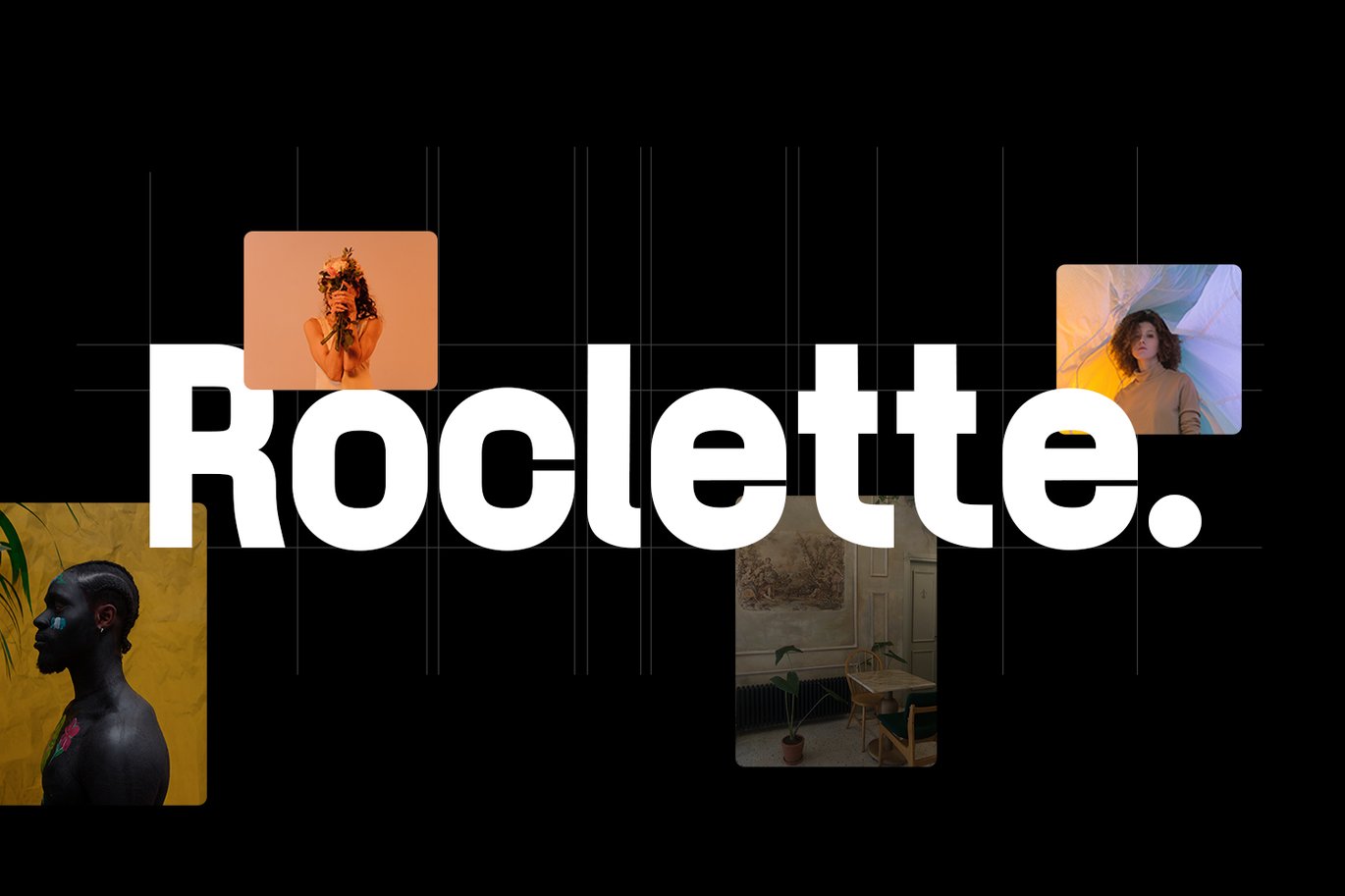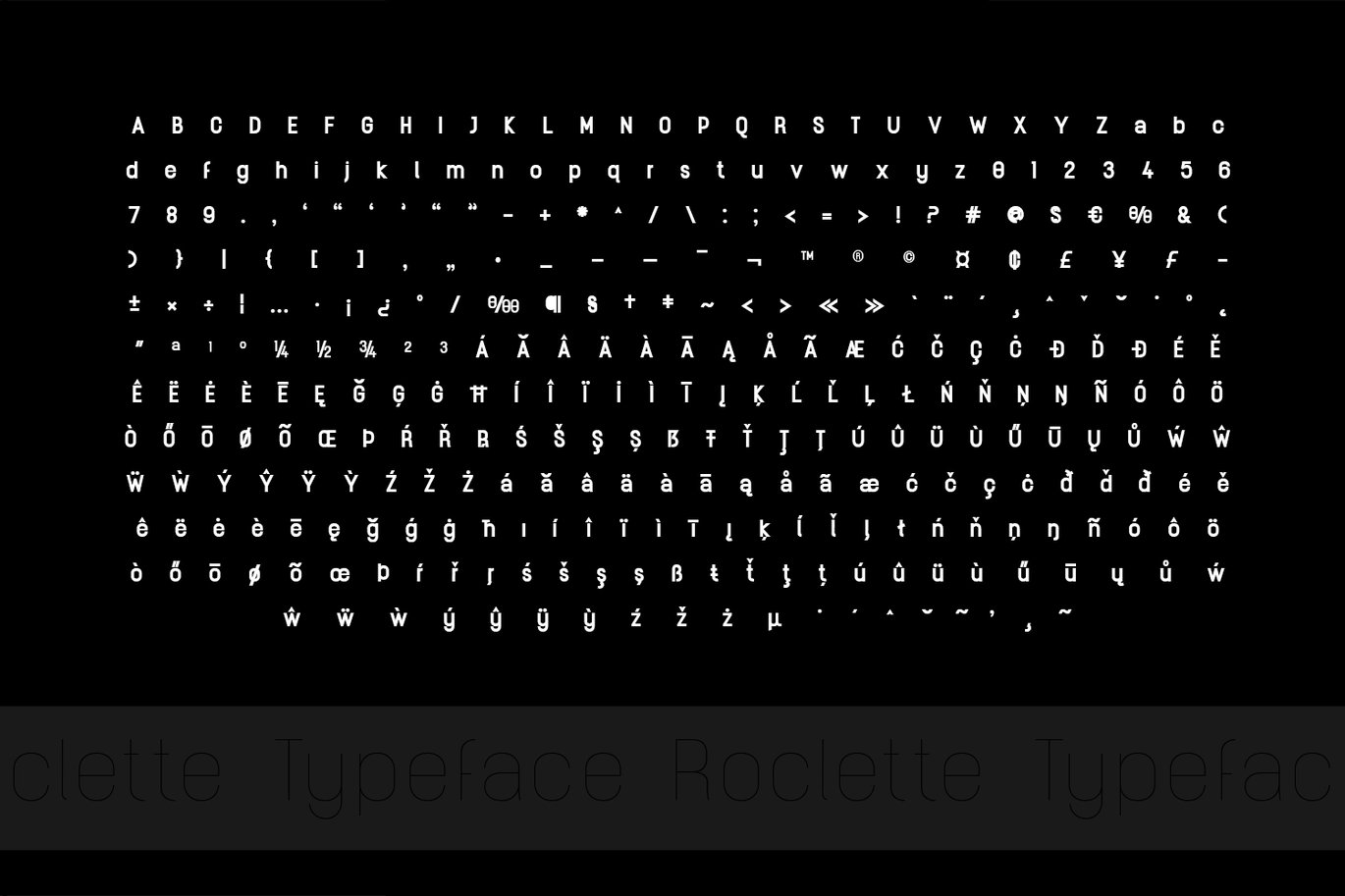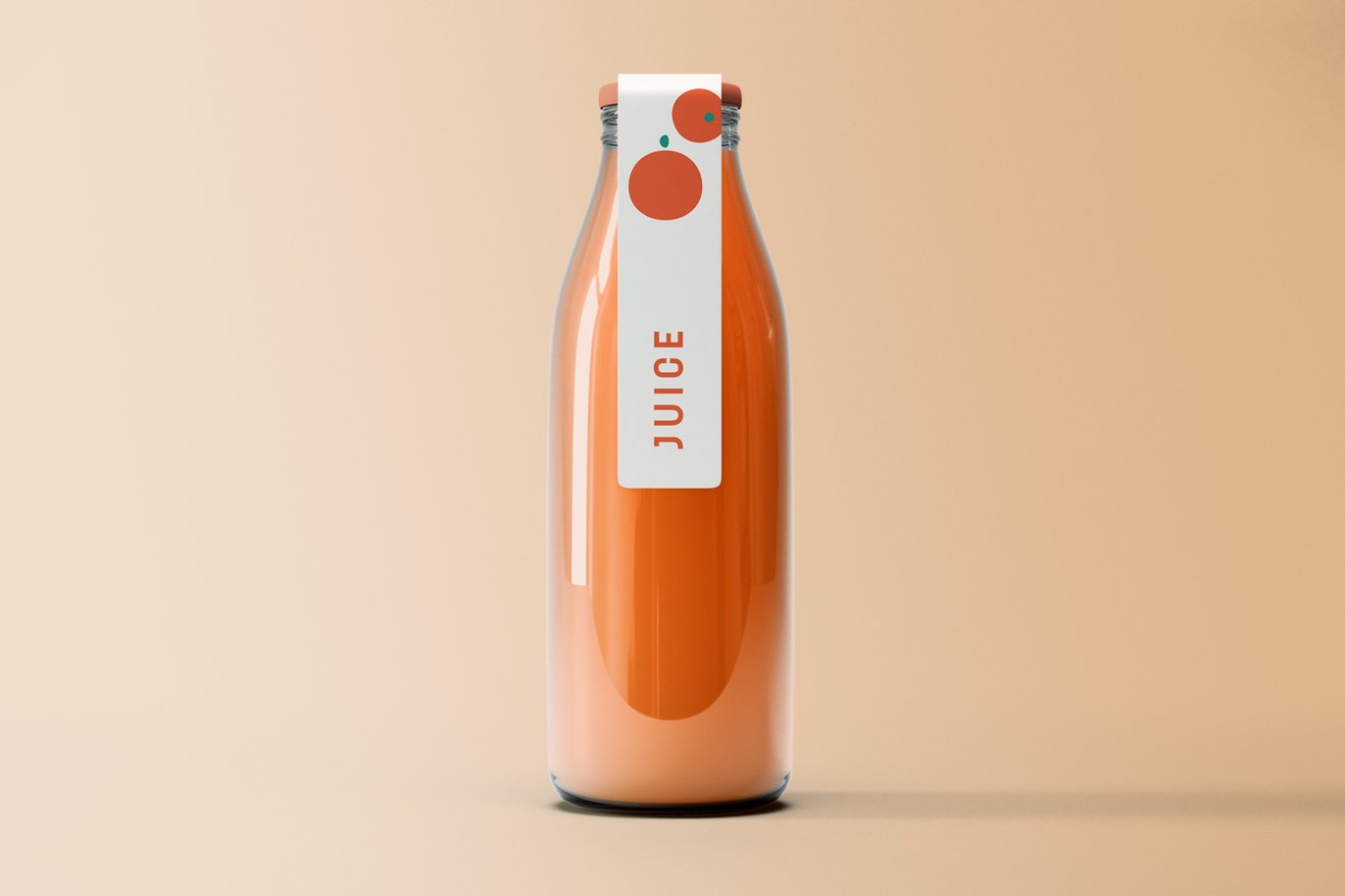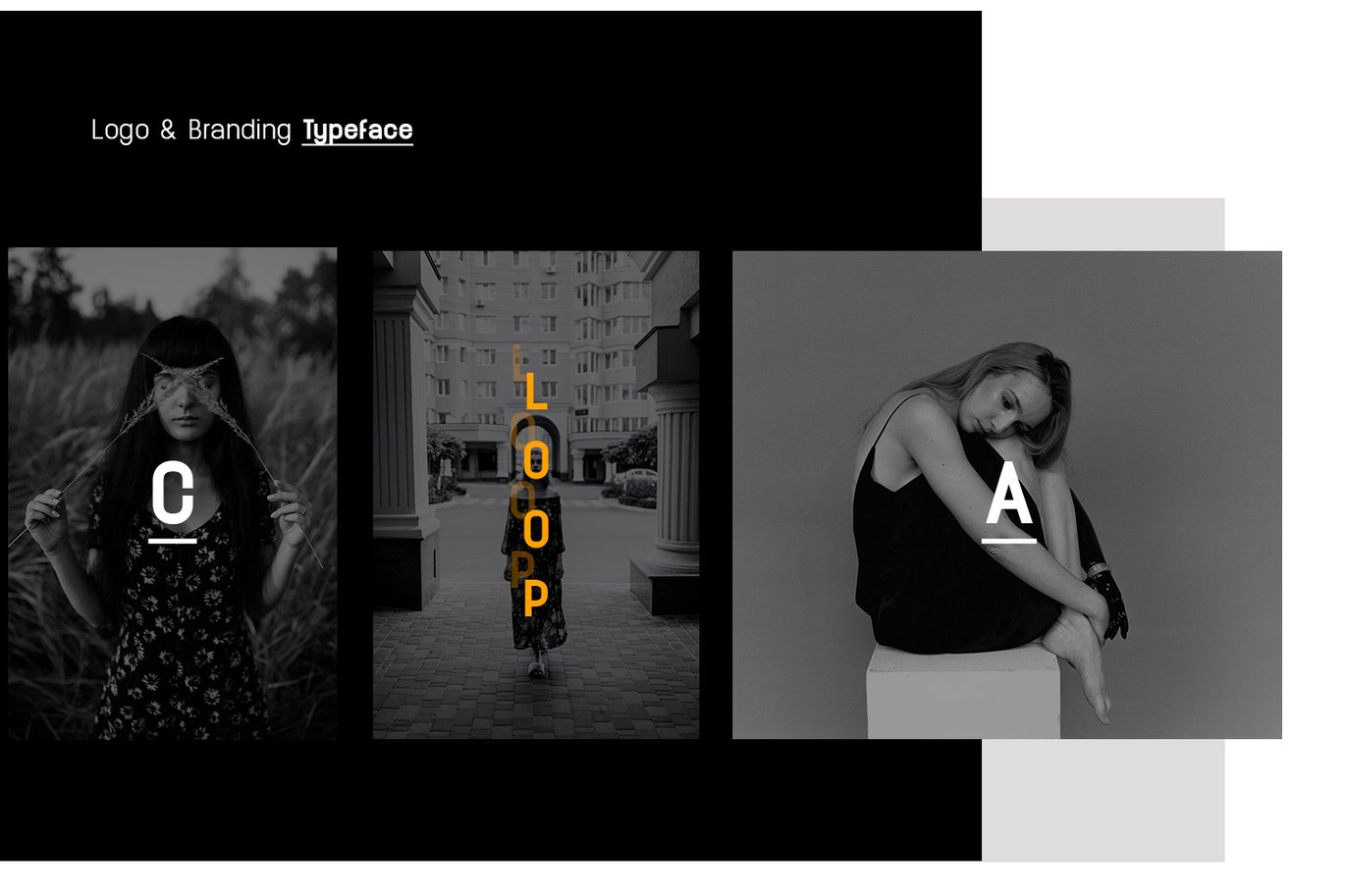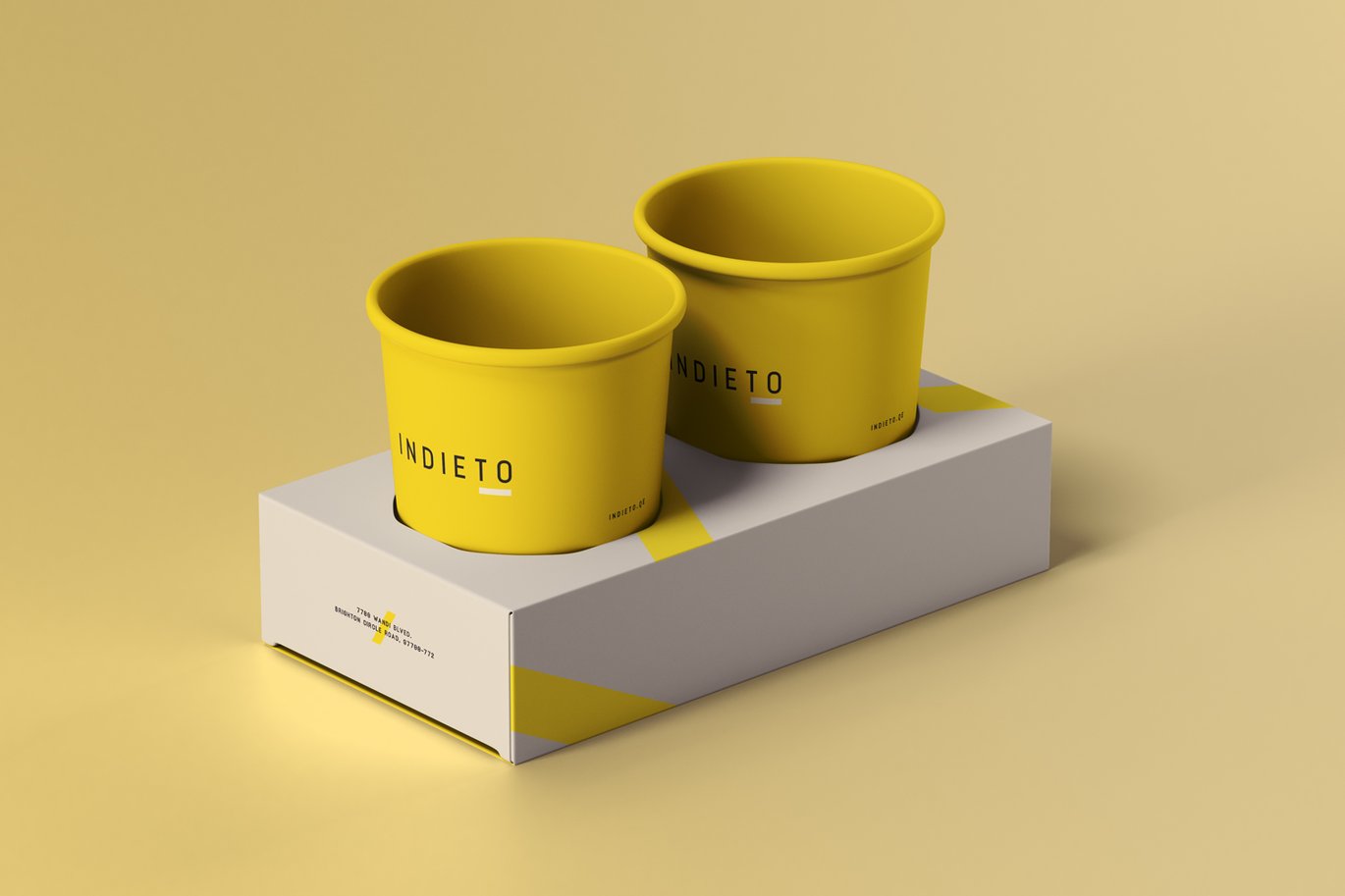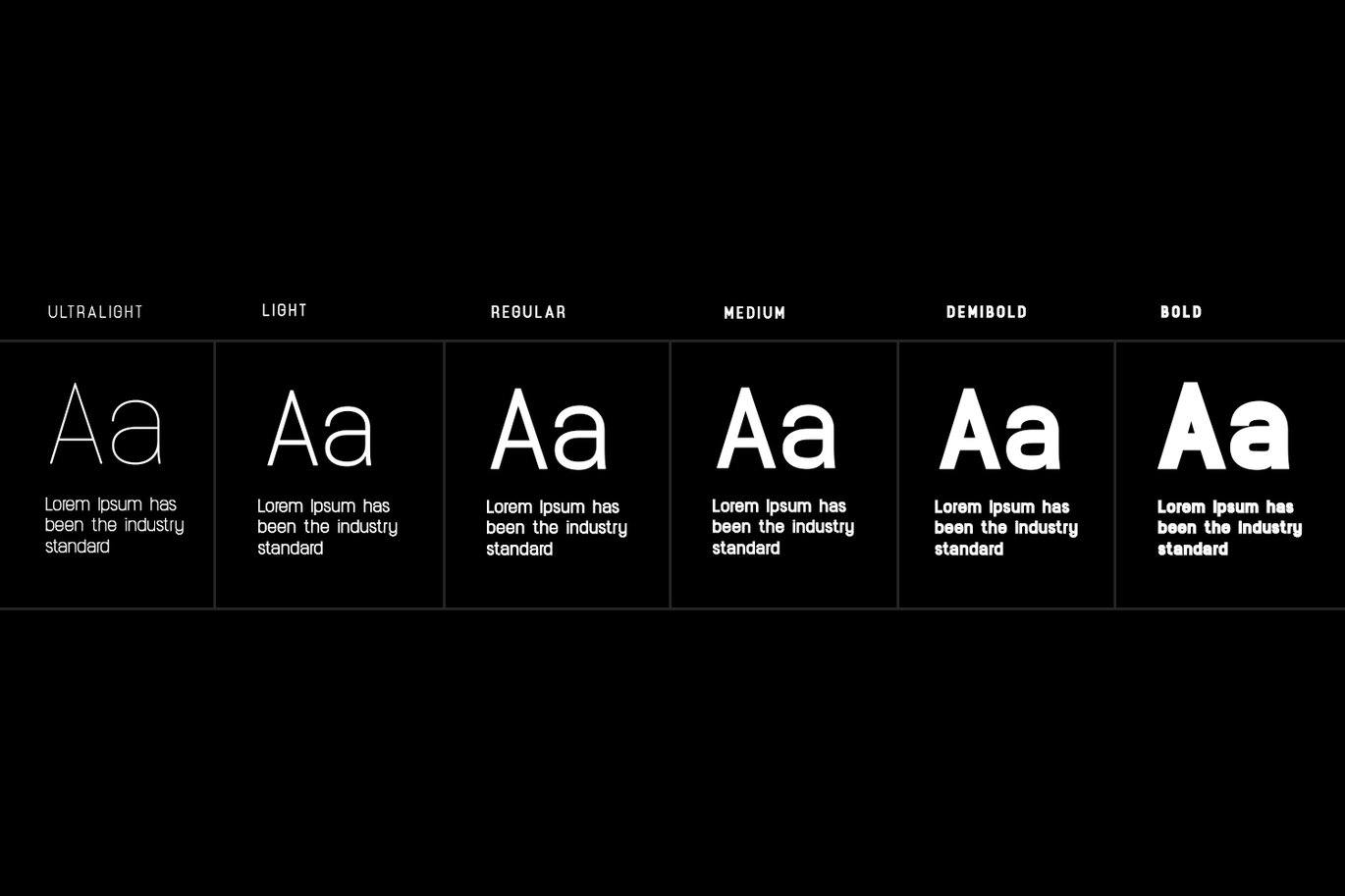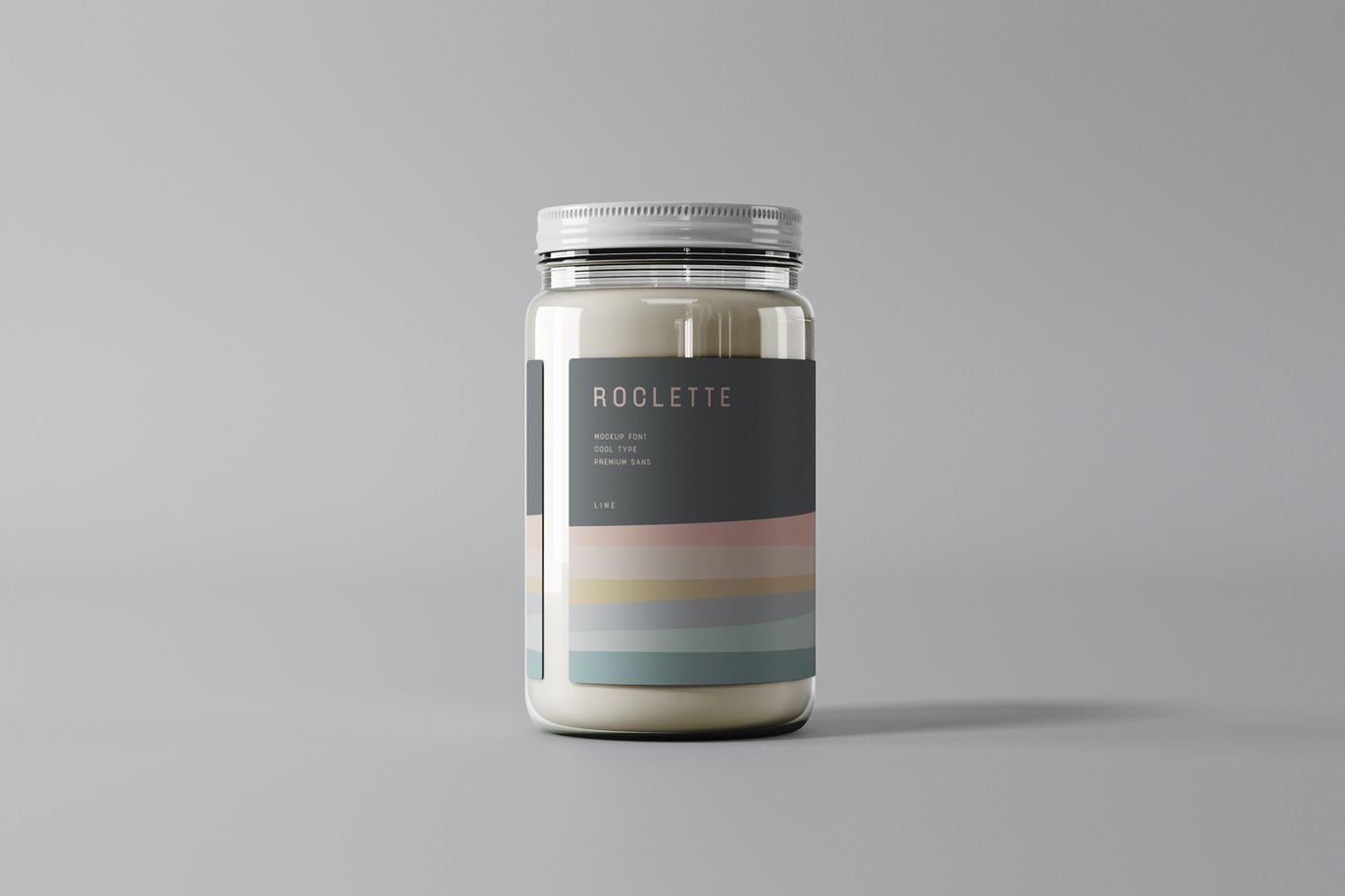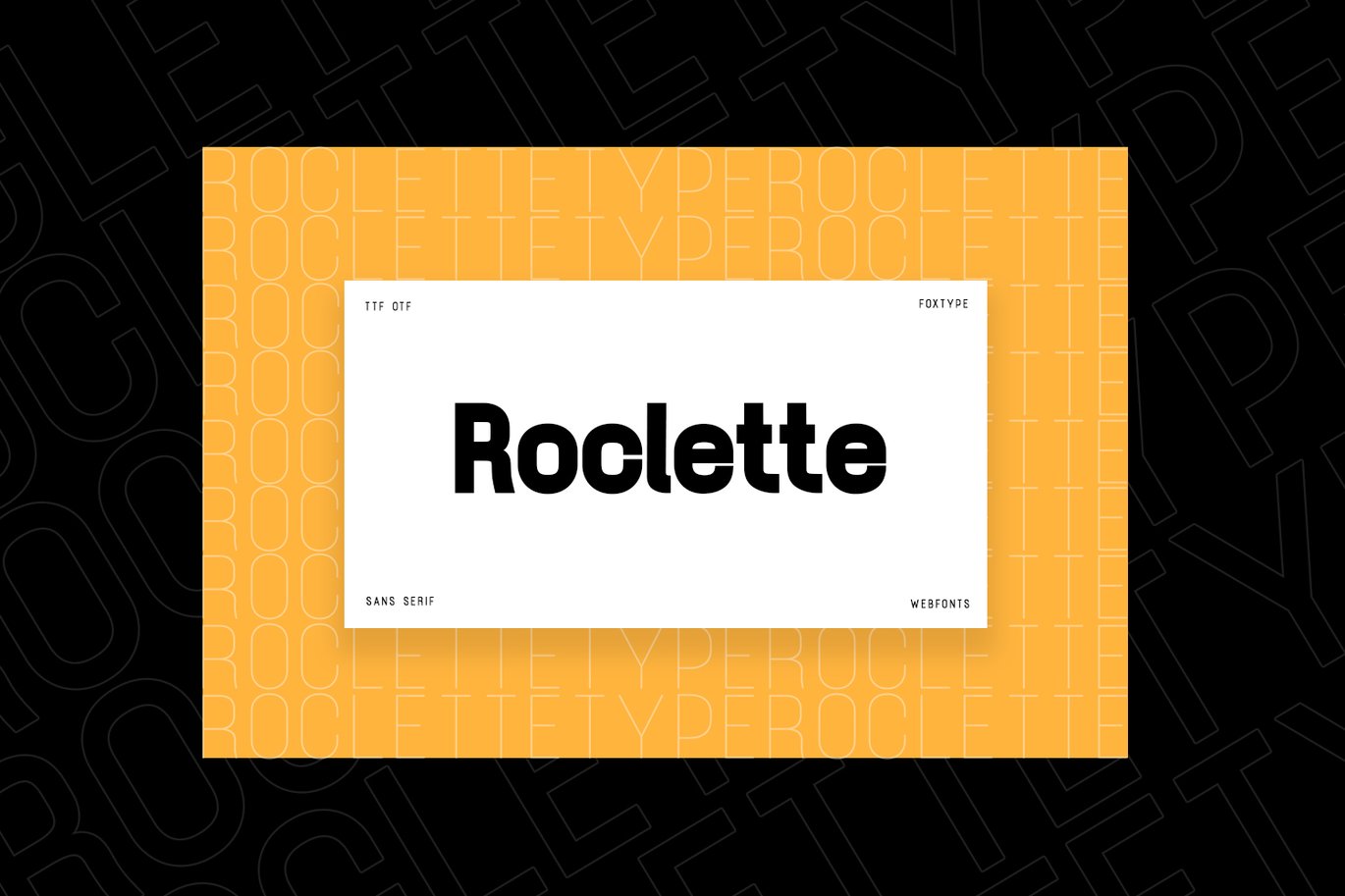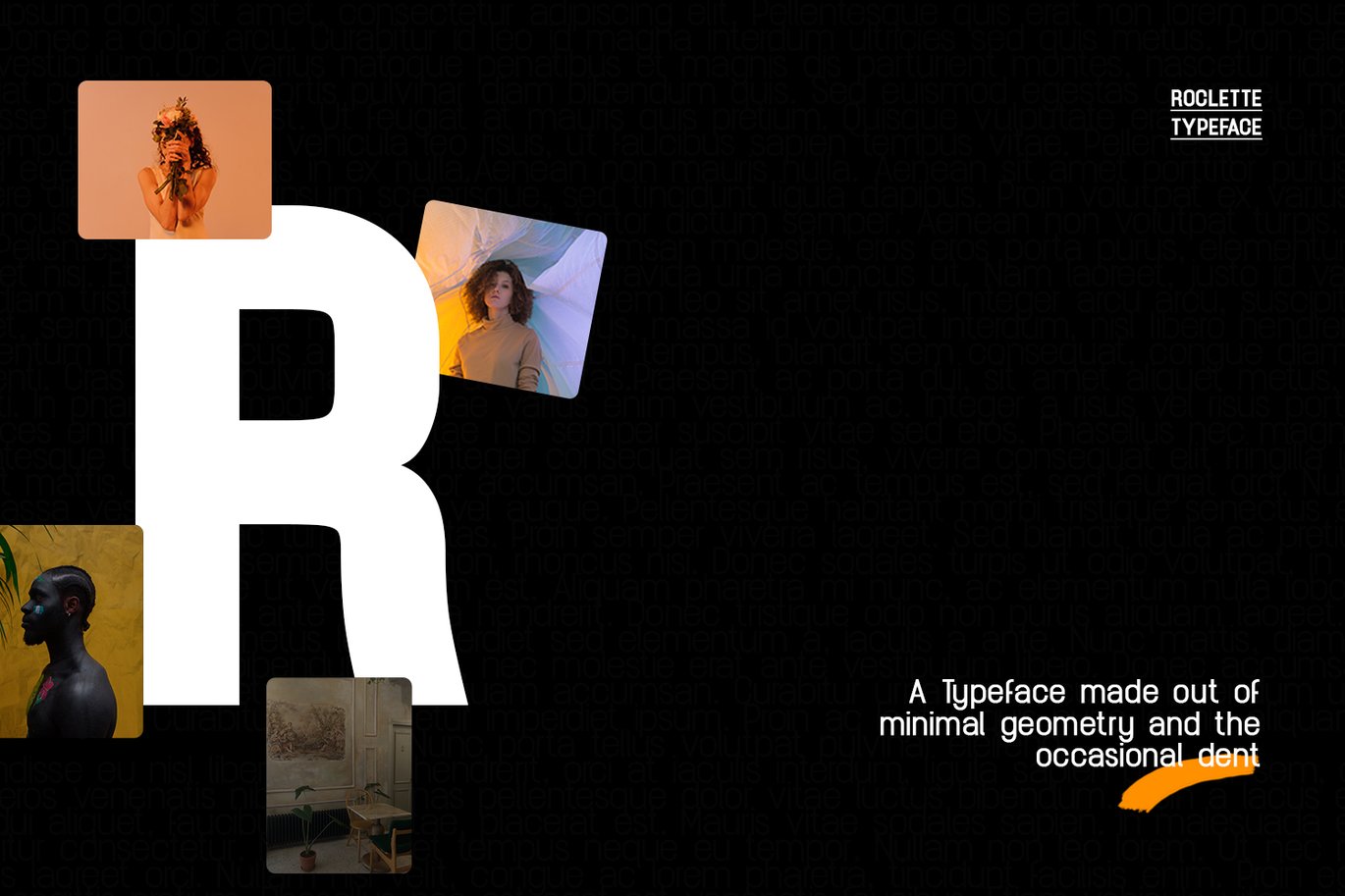
Roclette Display Typeface
Roclette Display is a Brand New Elegant Typeface with a powerful font family. It has a dependable and uncompromising style, with controlled letterforms and modern touches. It looks amazing in logos, magazines, and movies. Roclette Font would be perfect for branding, headlines, Captions, paragraph, and posters. The various weights allow you to experiment with a wide range of applications. It’s created to make an impression without sacrificing its beauty and readability. It’s shown a clean, minimalist, warmth, quirky, yet still purposed to be versatile
The Typeface includes Six Weights – UltraLight, Light, Normal, Medium, DemiBold, & Bold. All offer wide language support, upper and lower cases, numerals and extended punctuation.